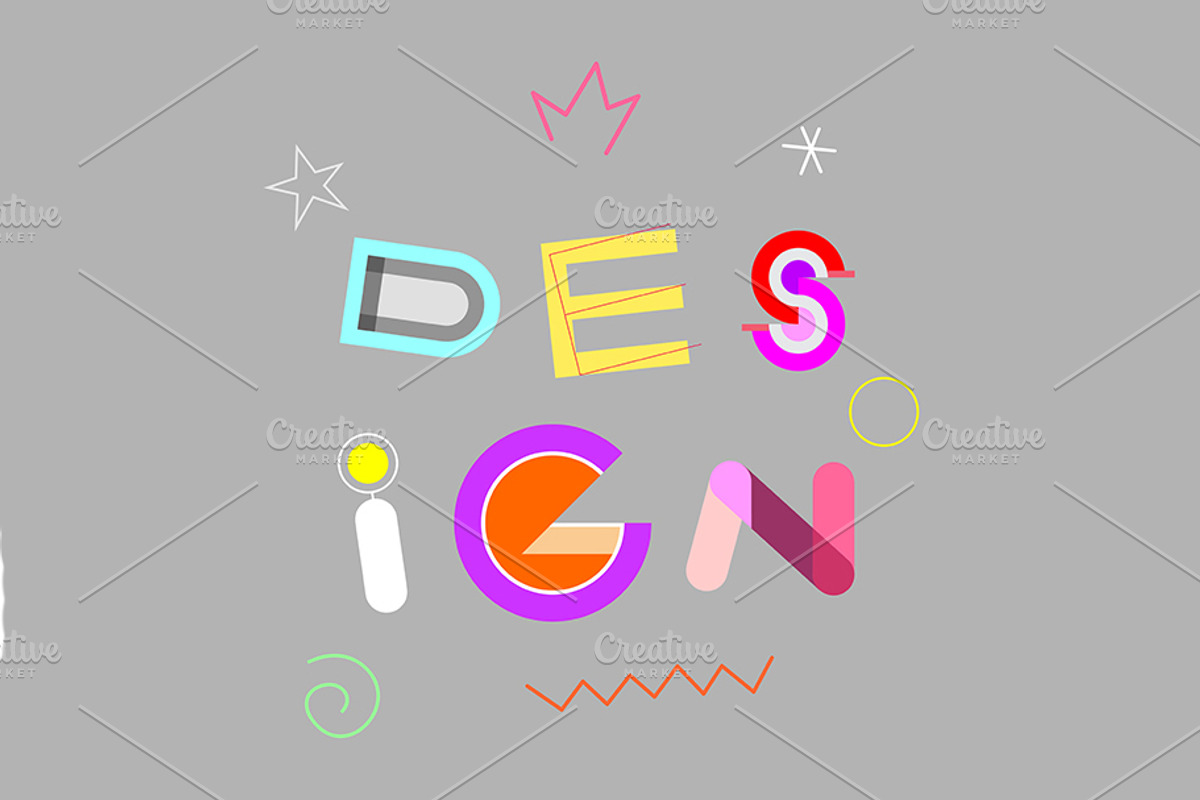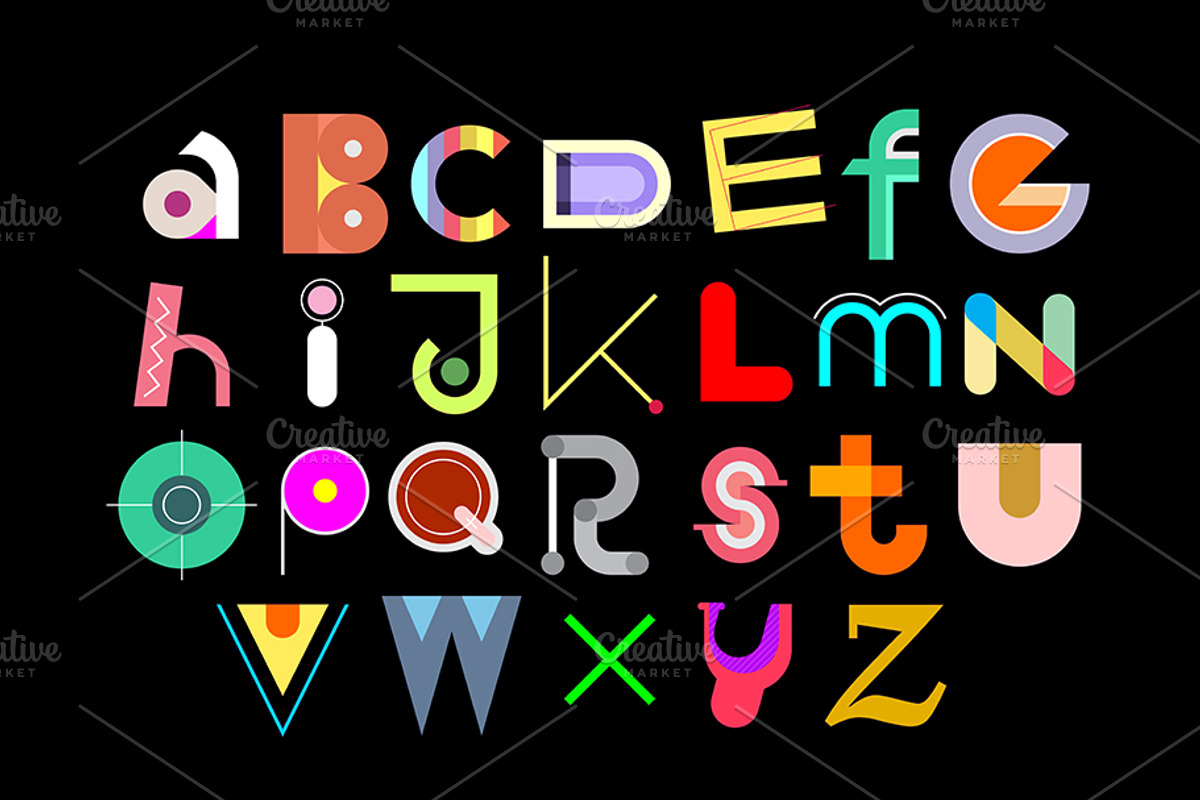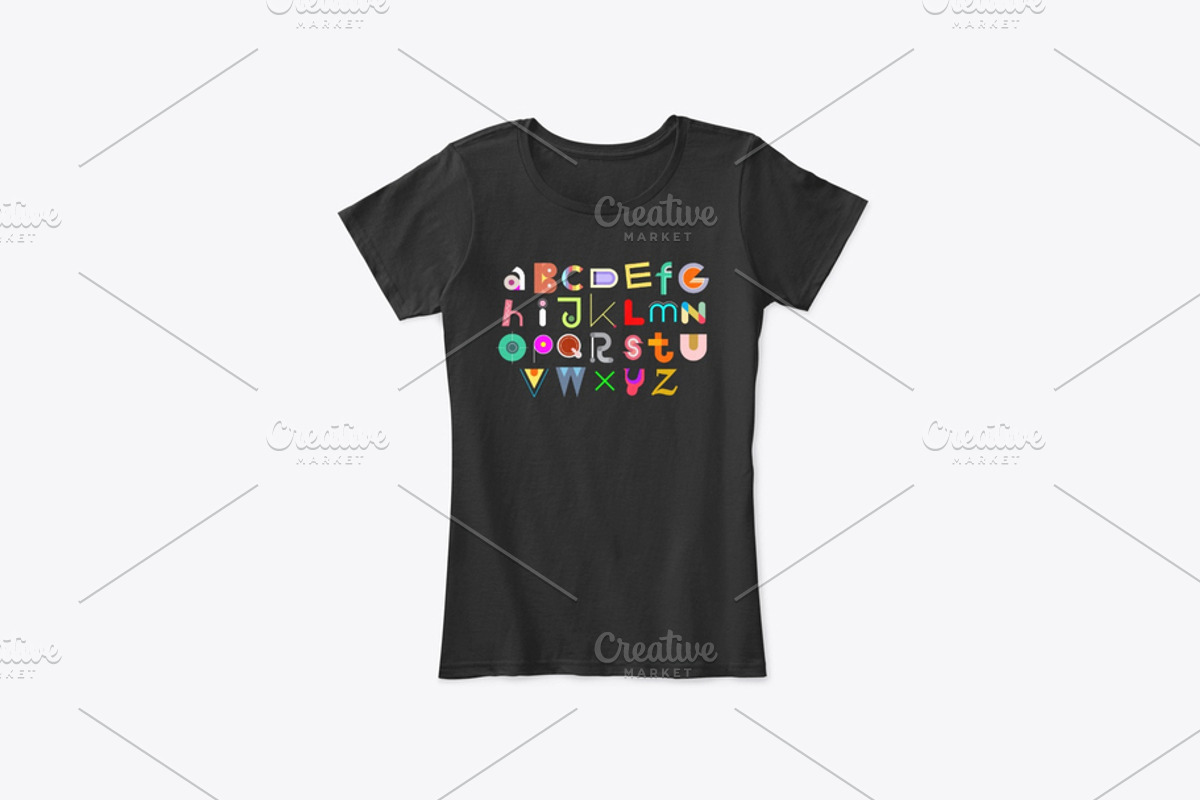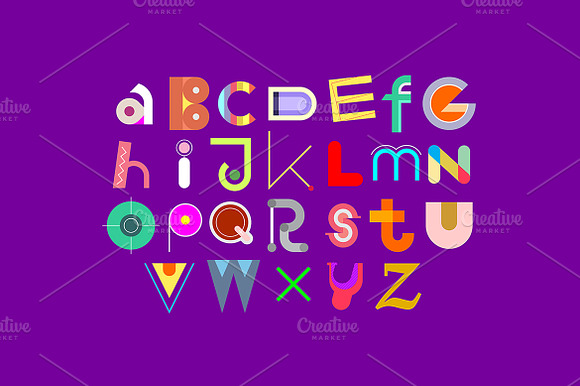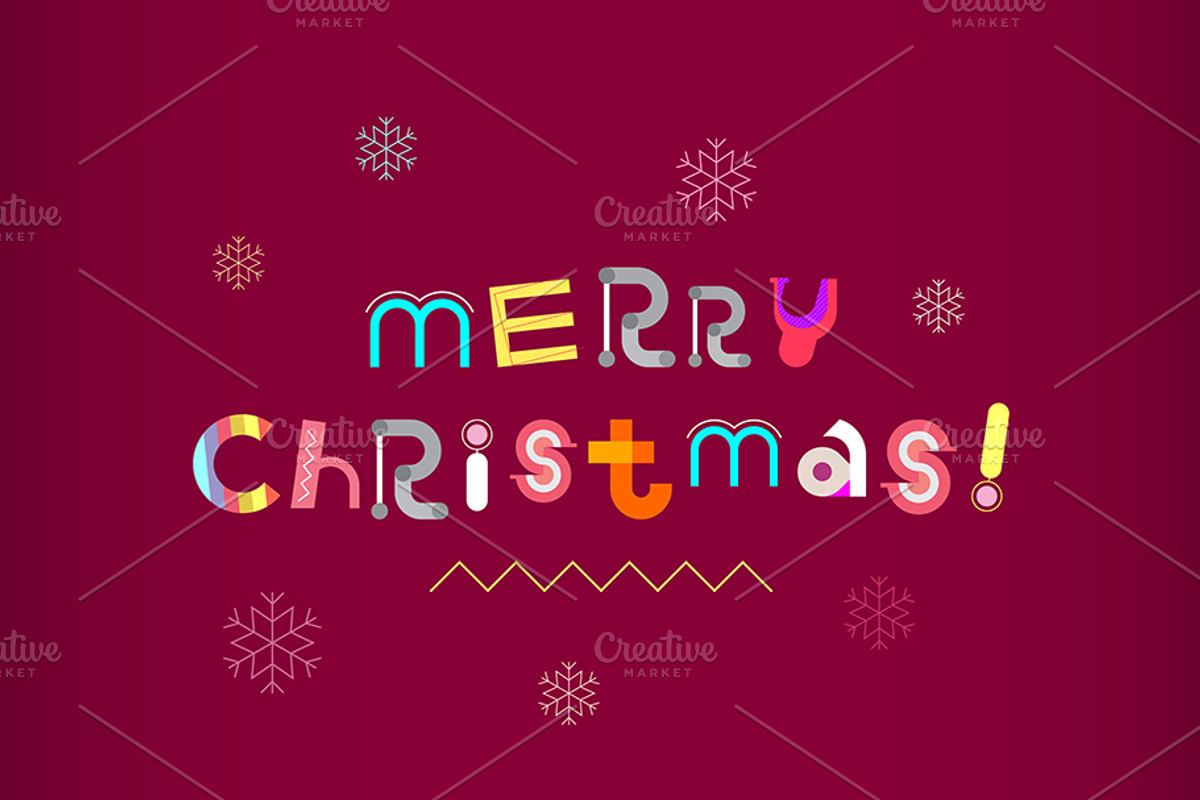
Decorative Font Design
Colorful font design isolated on a bright purple/black background & usage examples. Each symbol is on a separate layer.
Decorative Font Design by danjazzia fits naturally into Branding, posters, packaging, typography.